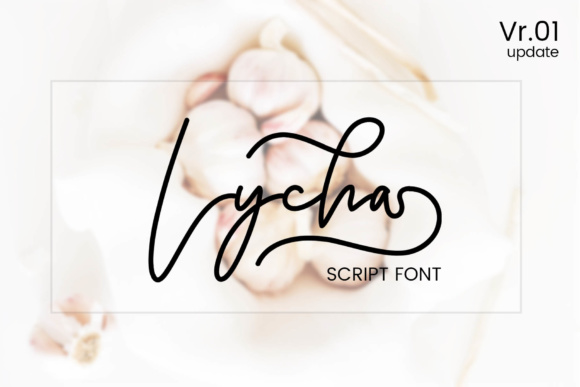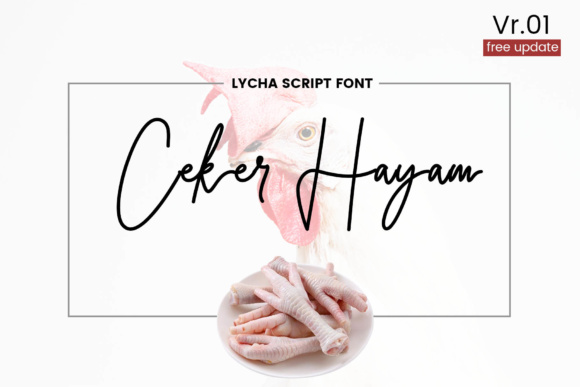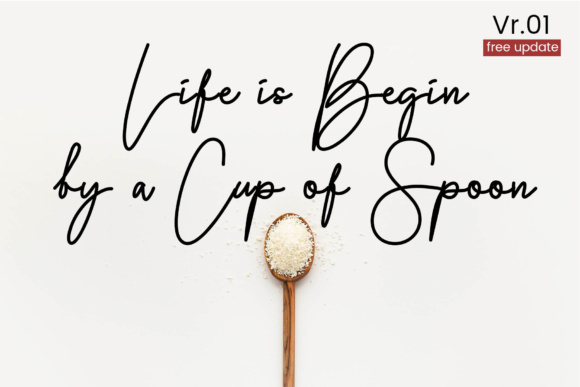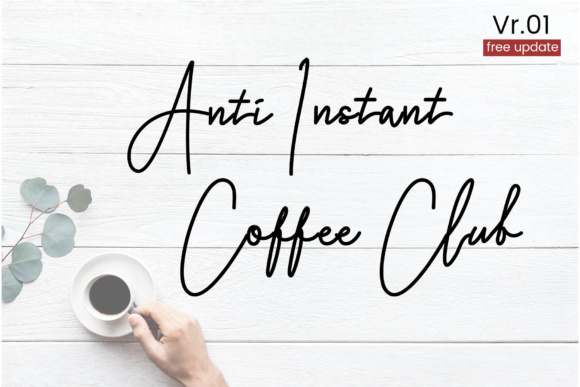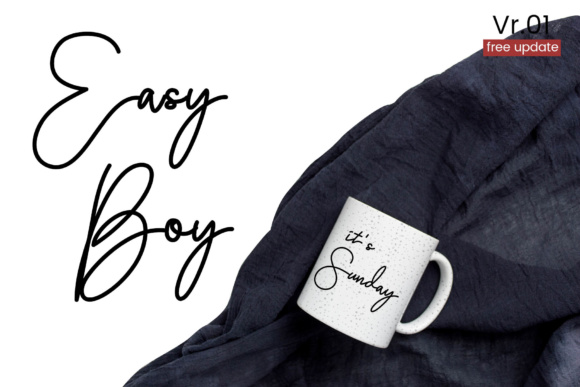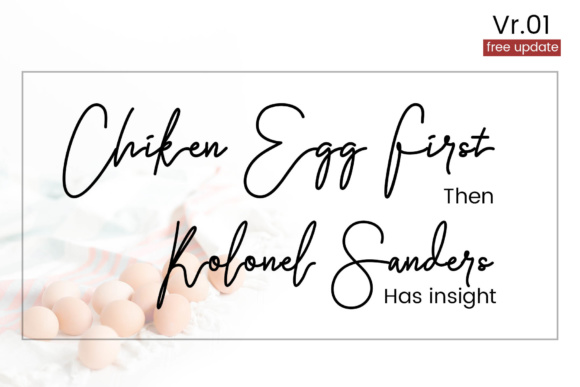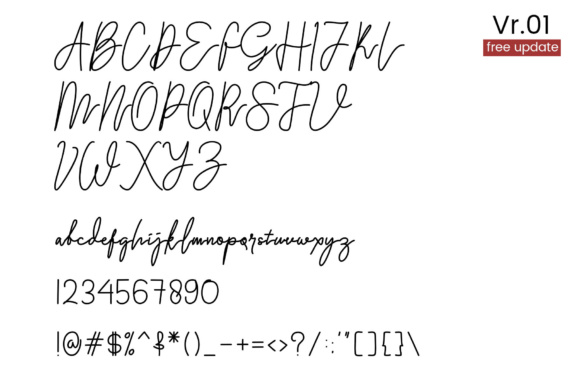
Lycha Font
About Lycha Font
The Lycha is a new script font with a feminine look. It’s perfect for creating designs with a realistic hand writing touch.